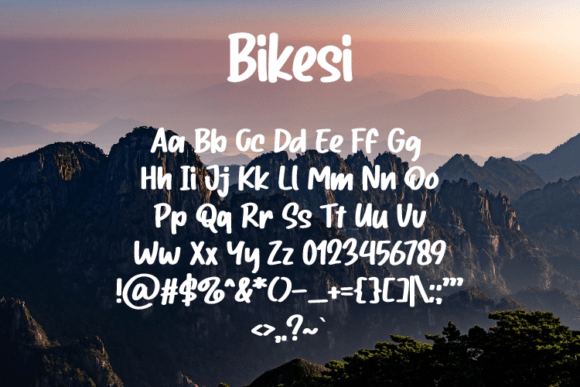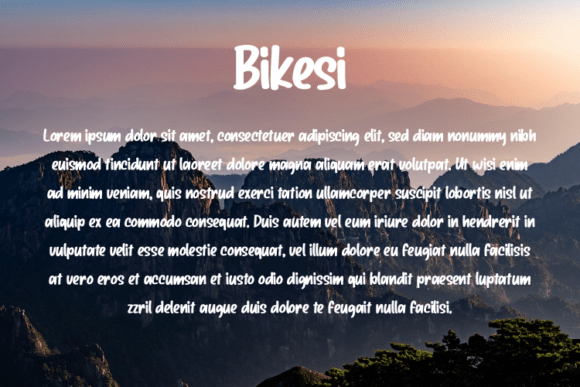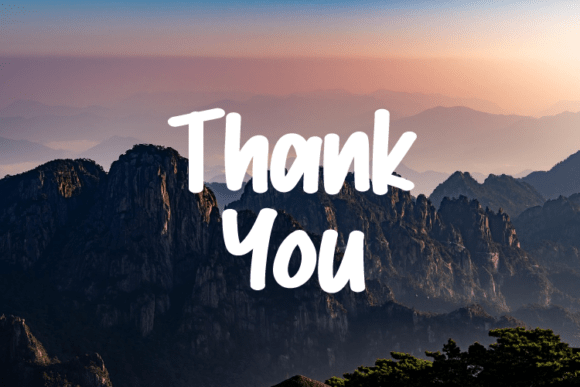
Bikesi Font: Elevate Your Designs with Modern Elegance
In the world of typography, a font can make or break a design. With the vast array of typefaces available, finding the perfect one that balances style, readability, and versatility can be a daunting task. However, if you’re looking for a modern and elegant solution, look no further than the Bikesi Font. Designed with flexibility and readability in mind, Bikesi is an exceptional typeface that can elevate your designs across various media.
What is Bikesi Font?
Bikesi is a contemporary typeface crafted to provide excellent readability across a wide range of media, from digital screens to print materials. Its clean lines, elegant curves, and carefully considered letterforms make it an ideal choice for designers and crafters seeking a sophisticated look. Whether you’re working on a branding project, website design, or crafting a beautiful piece of art, Bikesi Font is sure to impress.
Key Features of Bikesi Font
• Modern and Elegant Design: Bikesi boasts a sleek and refined aesthetic that adds a touch of sophistication to any design.
• Excellent Readability: The font’s carefully crafted letterforms ensure clear legibility, even at smaller font sizes.
• Flexible and Versatile: Bikesi can be used across various media, including digital screens, print materials, and office applications.
Bikesi Font offers numerous benefits for designers and crafters, including:
• Time-Saving: With its excellent readability and versatility, Bikesi saves you time and effort in selecting and pairing fonts.
• Consistency: The font’s consistent design and spacing ensure a cohesive look across your designs.
• Professionalism: Bikesi’s modern and elegant design elevates your work, giving it a professional and polished look.
Use Cases for Bikesi Font
Bikesi Font is suitable for a wide range of design projects, including:
• Branding and logos
• Website design and development
• Print materials (business cards, brochures, posters, etc.)
• Digital art and illustrations
• Signage and display design
Font Name Bikesi Font
Author Eric Kusuma
In conclusion, Bikesi Font is an exceptional typeface that offers a perfect blend of modern elegance, flexibility, and readability. Its superior cross-platform compatibility and versatility make it an ideal choice for designers and crafters seeking a reliable and sophisticated font solution. Whether you’re working on a personal project or a client’s design brief, Bikesi Font is sure to elevate your work and leave a lasting impression.